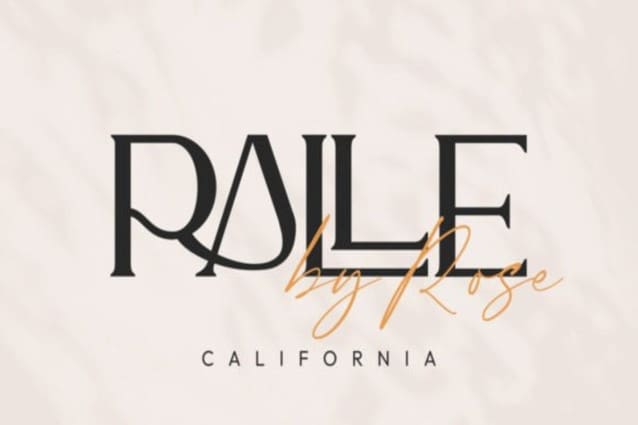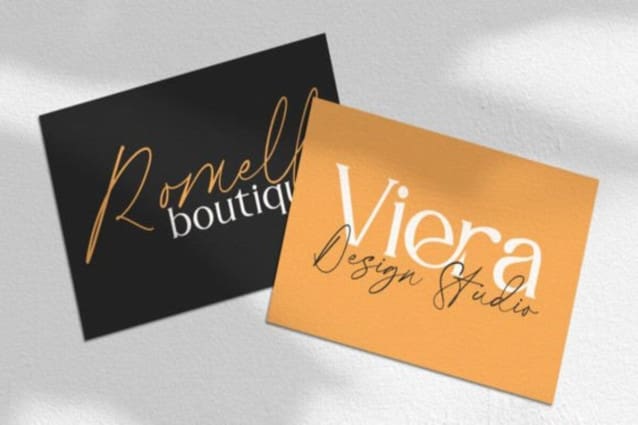
Pablo Co Font Duo
Pablo Co Font Duo is a stunning pair of script and serif fonts that complement each other, with an elegant and luxurious look. This font duo is suitable for logo designs, stationery, quotes, or anything that needs an exquisite and stylish touch.